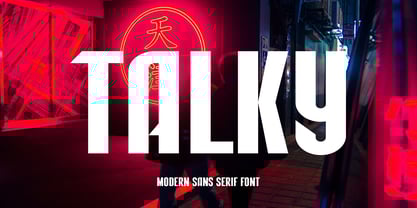
Talky
by Graphicxell
Talky – Strong Display Sans Serif Typeface
Talky is a bold and modern sans serif display font designed to make an impact. With thick lines, sharp angles, and slanted terminals, it brings power and confidence to every design. Whether you're building a sports brand or designing a dynamic game logo, Talky delivers bold energy with clean precision.
This typeface combines strong structure with edgy detail. Its slanted, pointed ends add a fast, forward-moving feel—perfect for athletic, gaming, and tech-driven visuals. Still, its neat sans serif form keeps it professional enough for business and agency branding.
You’ll find Talky especially useful in designs that need to grab attention. From logos and tournament posters to esports banners and product packaging, this font commands the spotlight. It’s also great for Canva templates, social media headers, brochures, and magazine covers.
Because it’s built for high visibility, Talky works best in large sizes. Use it for headlines, titles, event promos, or anything that needs to stand out fast. In both print and digital formats, Talky ensures your message is seen and remembered.
Best Uses:
• 🏆 Sports branding, fitness campaigns, and tournament designs
• 🎮 Game logos, esports covers, and stream graphics
• 📰 Magazine headlines, posters, and ad layouts
• 📦 Product labels, packaging, and bold corporate branding
• 🖥️ Canva templates, digital promos, and agency presentations
If you're looking for a typeface that’s bold, modern, and full of energy, Talky is the font you need. Built to perform and styled to impress, it’s the perfect choice for high-impact design.
Designers: Graphicxell
Foundry: Graphicxell